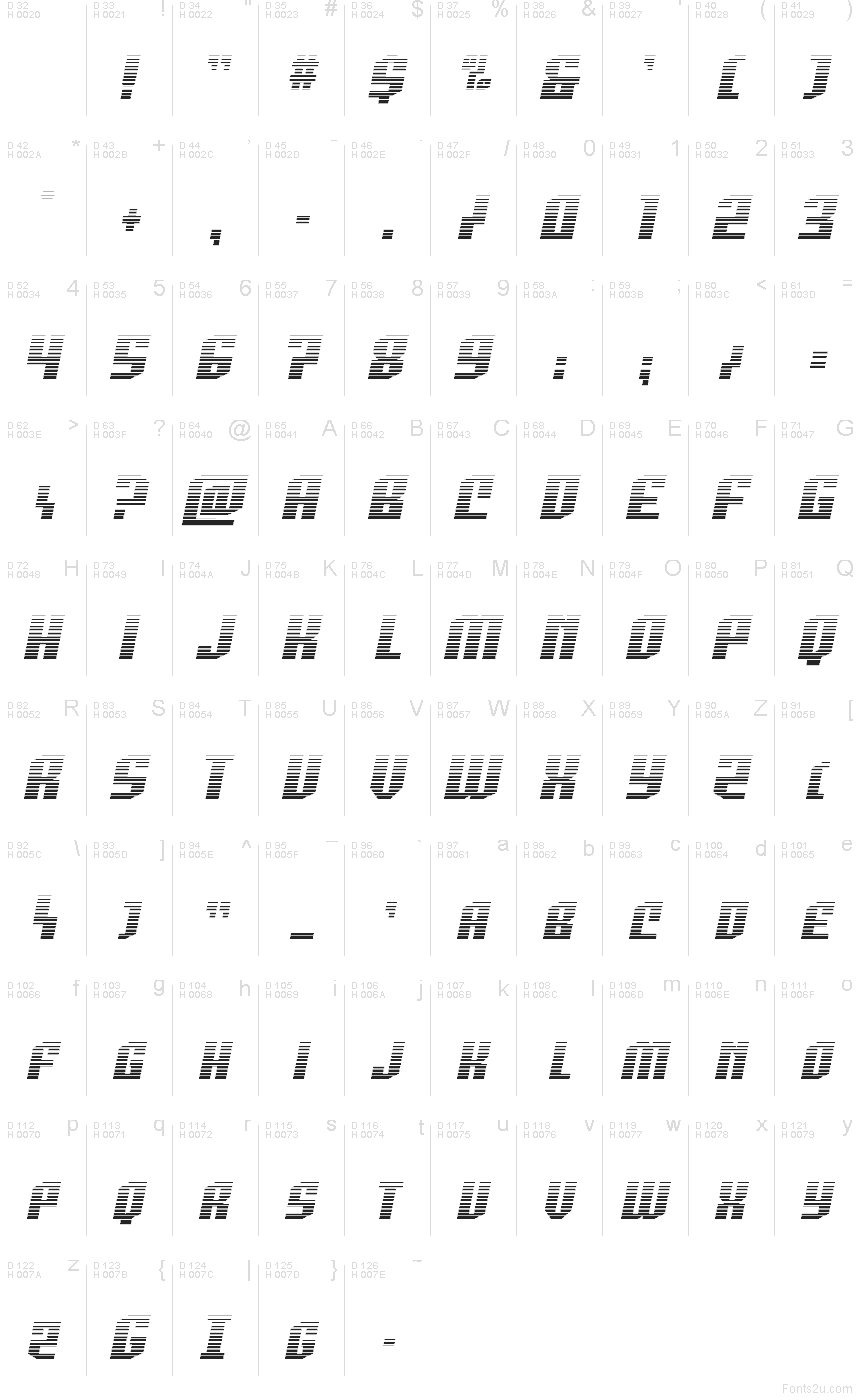
Viper Command Gradient Italic font by Daniel Zadorozny of Iconian Fonts comes from the Viper Command Gradient family and is a free techno font. Its slashed italic stance and scanline-like striping give every word a fast, engine-on feel-like you’re reading it through a cockpit HUD. The rhythm stays tight and punchy, so short phrases land with crisp, mechanical confidence.
Using Viper Command Gradient Italic, you’ll get instant energy on game titles, esports branding, sci‑fi posters, racing promos, tech trailers, UI splash screens, and YouTube thumbnails. Set it large for maximum “speed streak” impact, and pair it with a clean geometric sans for body text so this free font can do the shouting without muddying the details.